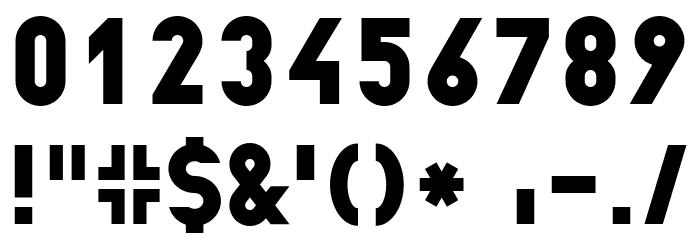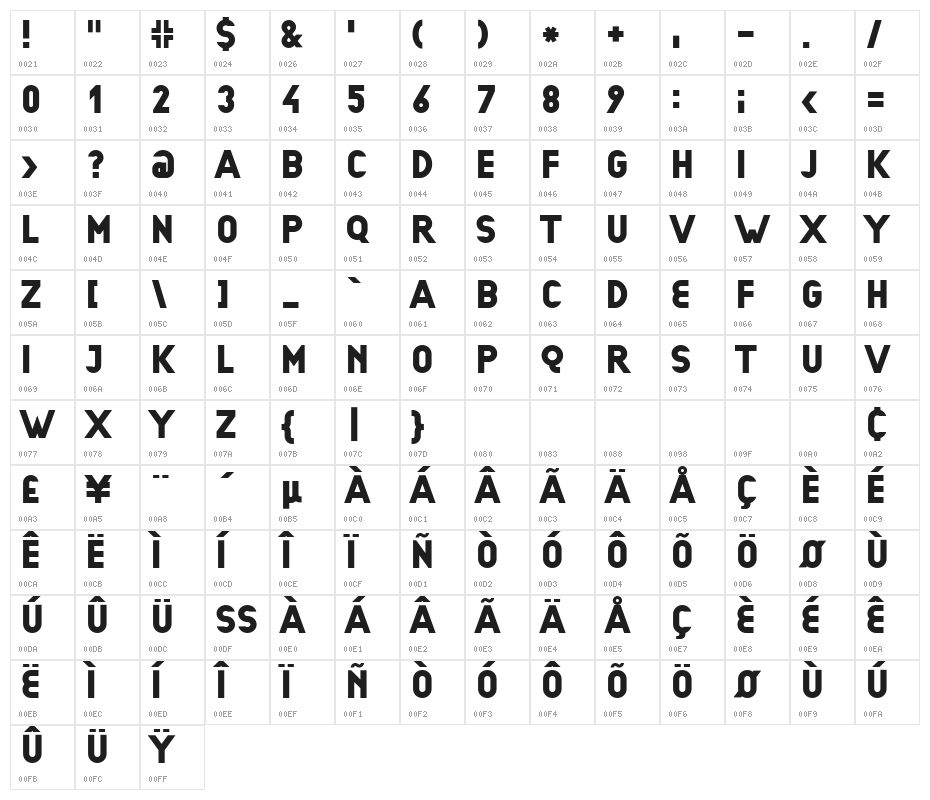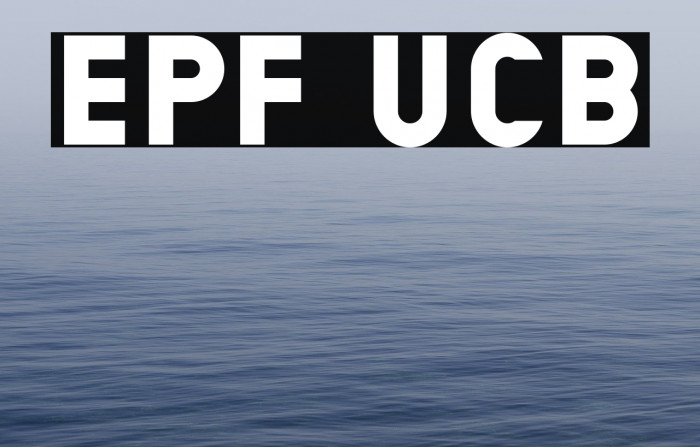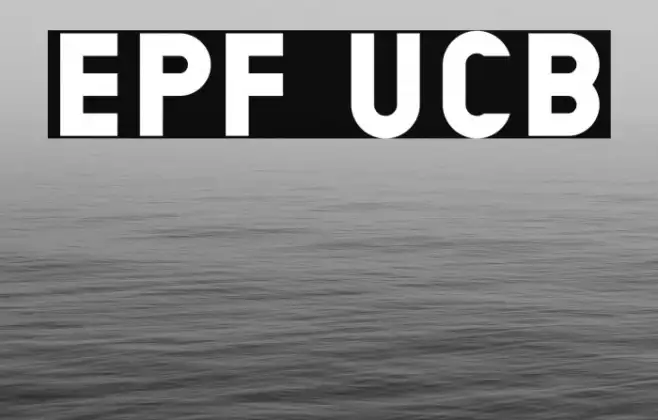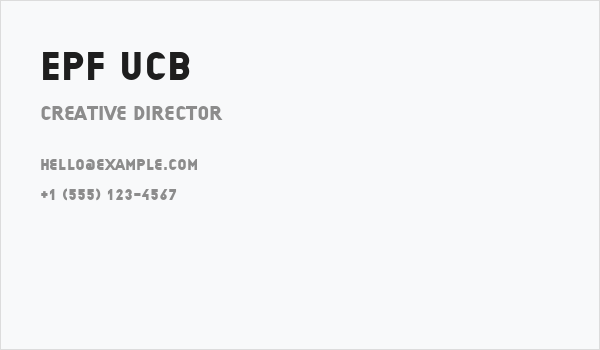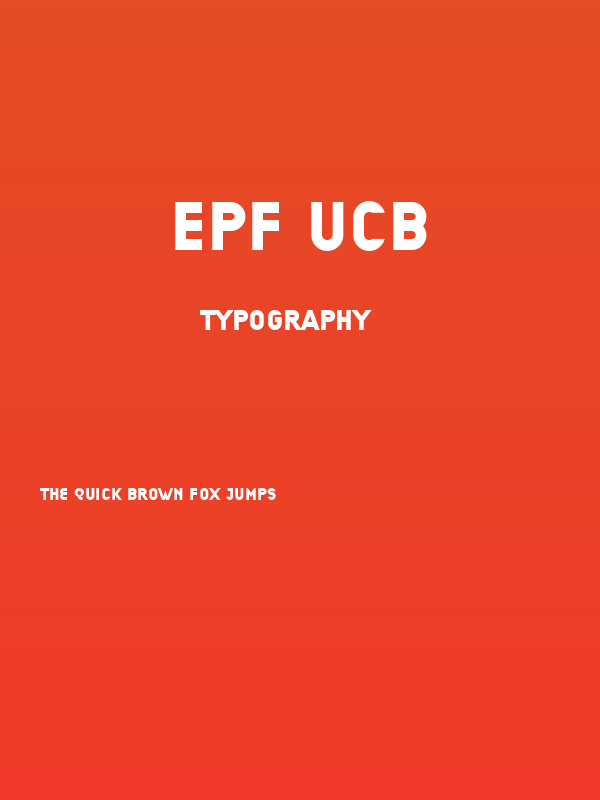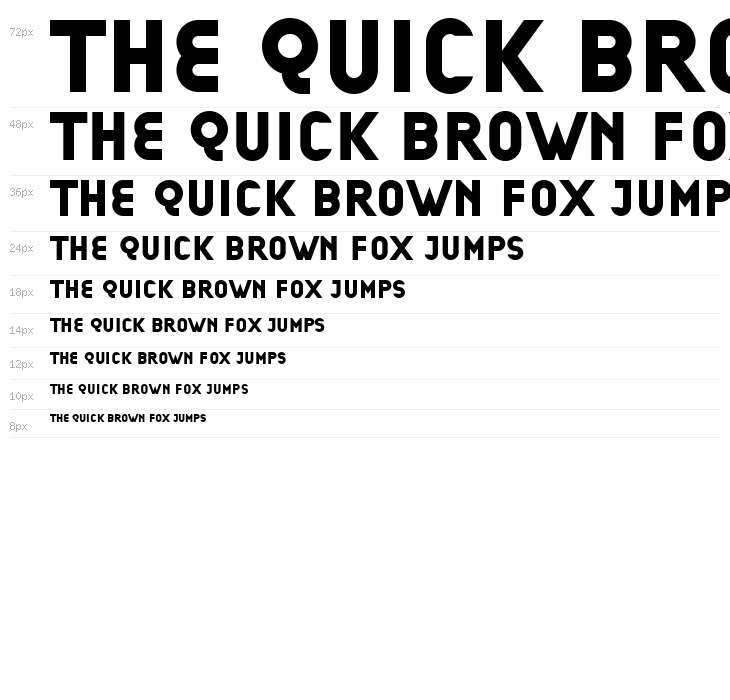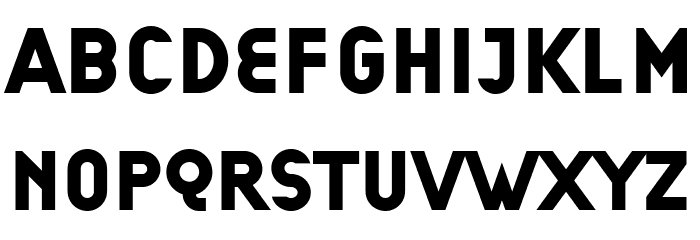
EPF UCB Font
EPF UCB Description
This font features bold, geometric letterforms with a strong presence. The characters are constructed with uniform stroke widths, giving them a modern and robust appearance. The uppercase letters are particularly striking, with sharp angles and clean lines that convey a sense of strength and stability. The numbers and special characters maintain this bold style, ensuring consistency across all glyphs. The font's design is straightforward yet impactful, making it suitable for a variety of applications where clarity and emphasis are required.
| Proposed Projects | Ideal for branding, headlines, posters, and signage where a bold and modern look is desired. |